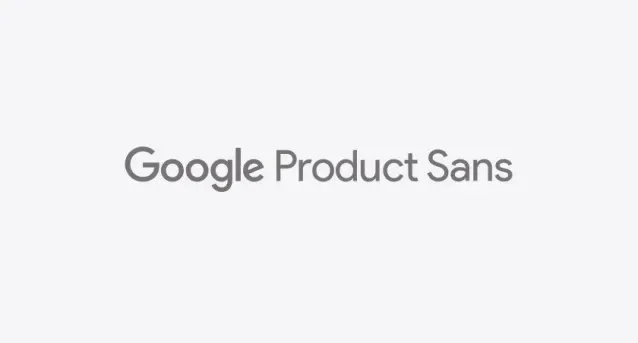
Product Sans Font is the clean, friendly, geometric typeface you've seen in Google's logo and branding since September 2015. Crafted to work across screens, billboards, and tiny UI icons, this Font balances simplicity with personality. Its circular shapes, unique double-story "a," and optically tweaked forms help it stay legible at a glance. It's designed to feel like a modern classic: familiar, trustworthy, and built to unite the huge Google ecosystem.
- Designer: Google in-house team (credited to Colophon & Jesse Kaczmarek)
- Released: September 1, 2015 with Google’s logo redesign
- Style: Geometric sans serif influenced by Futura, Neuzeit Grotesk, and Avenir
- Rounded, geometric letterforms with polished optical tweaks
- Distinctive double-story “a” and slanted “e” in the logo version
- Optimized for clear rendering from small app icons to large billboards
- Supports Latin, Cyrillic, Greek, and Devanagari scripts
Product Sans Font sets a modern, approachable tone ideal for tech branding, UI headers, and marketing visuals. Because it's geometric and friendly, it pairs well with serif fonts like Georgia for contrast, or humanist sans fonts like Open Sans to retain openness without clashing.